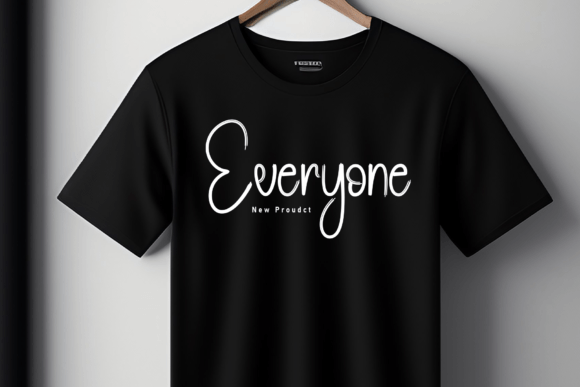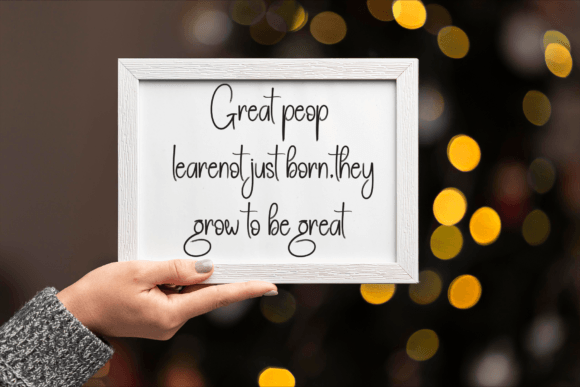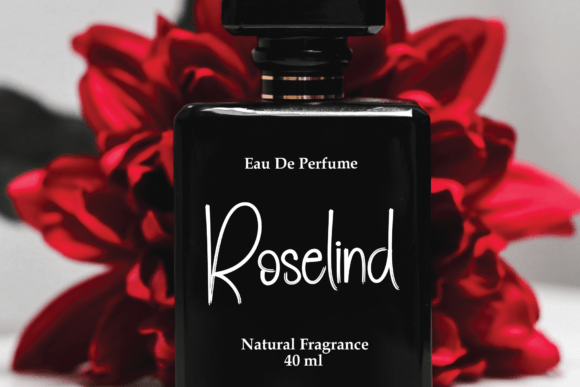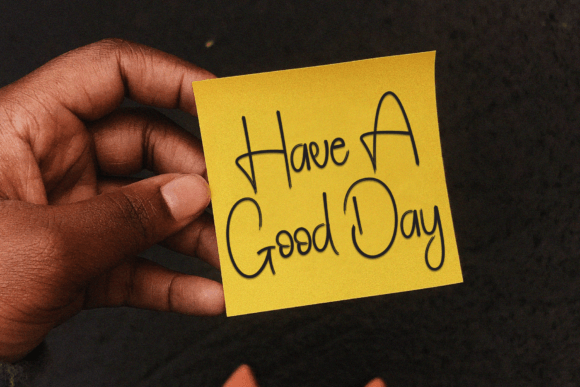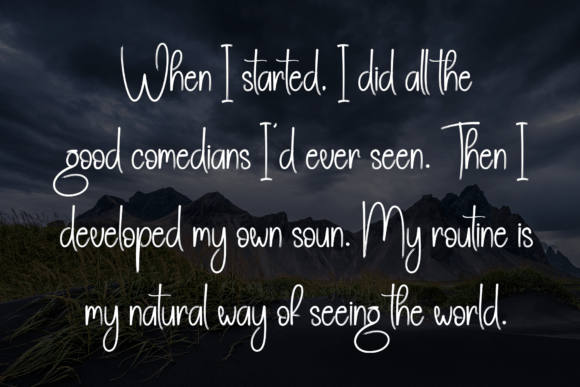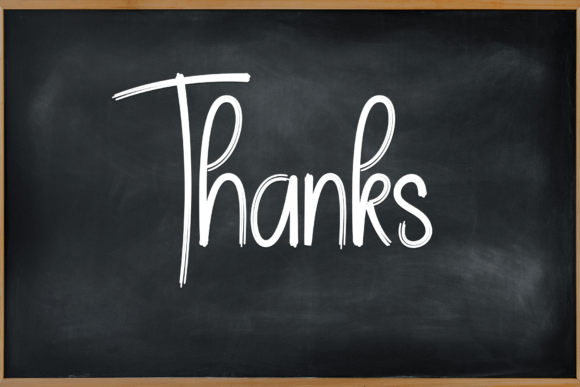
The Elegance of Blackboard Font: A Designer’s Delight
I’ll never forget the time I was working on a wedding invitation project, and my client asked for a font that would make their special day feel like a fairytale. I scoured the internet, trying out font after font, but nothing seemed quite right. That was until I stumbled upon Blackboard Font. With its stylish and elegant script, it was love at first sight! ✨ In this article, I’ll share my experience with Blackboard Font, its features, and how to make the most of it in your designs.
An Honest Review of Blackboard Font
- ✨ Elegant and stylish script font perfect for wedding invitations, thank you cards, and more
- ✅ Highly versatile and can be used for various design projects, from logos to business cards
- 💫 Beautifully crafted to add a handwritten touch to your designs
- 🎨 Supports OpenType features, glyphs, and stylistic alternates for added creativity
While Blackboard Font is an excellent choice for many design projects, there are a few things to keep in mind:
- ⚠️ May not be suitable for very small font sizes, as some details may get lost
- 🤔 Limited availability of certain characters or glyphs, which may require additional editing
A Practical Guide to Using Blackboard Font
The Backstory of Blackboard Font
Blackboard Font was created with the intention of bringing a touch of elegance and sophistication to design projects. Its creator drew inspiration from traditional blackboard typography, aiming to craft a font that would be both stylish and highly legible. The result is a beautiful script font that has captured the hearts of designers and crafters alike.
| What is Blackboard Font best used for? | Blackboard Font is perfect for wedding invitations, thank you cards, quotes, greeting cards, logos, business cards, and any other design that requires a handwritten touch. |
| Is Blackboard Font suitable for body text? | No, Blackboard Font is best used for headings, titles, and short paragraphs. Its elegant script may not be suitable for long blocks of text. |
| Does Blackboard Font support OpenType features? | Yes, Blackboard Font supports OpenType features, glyphs, and stylistic alternates, allowing for added creativity and customization in your designs. |